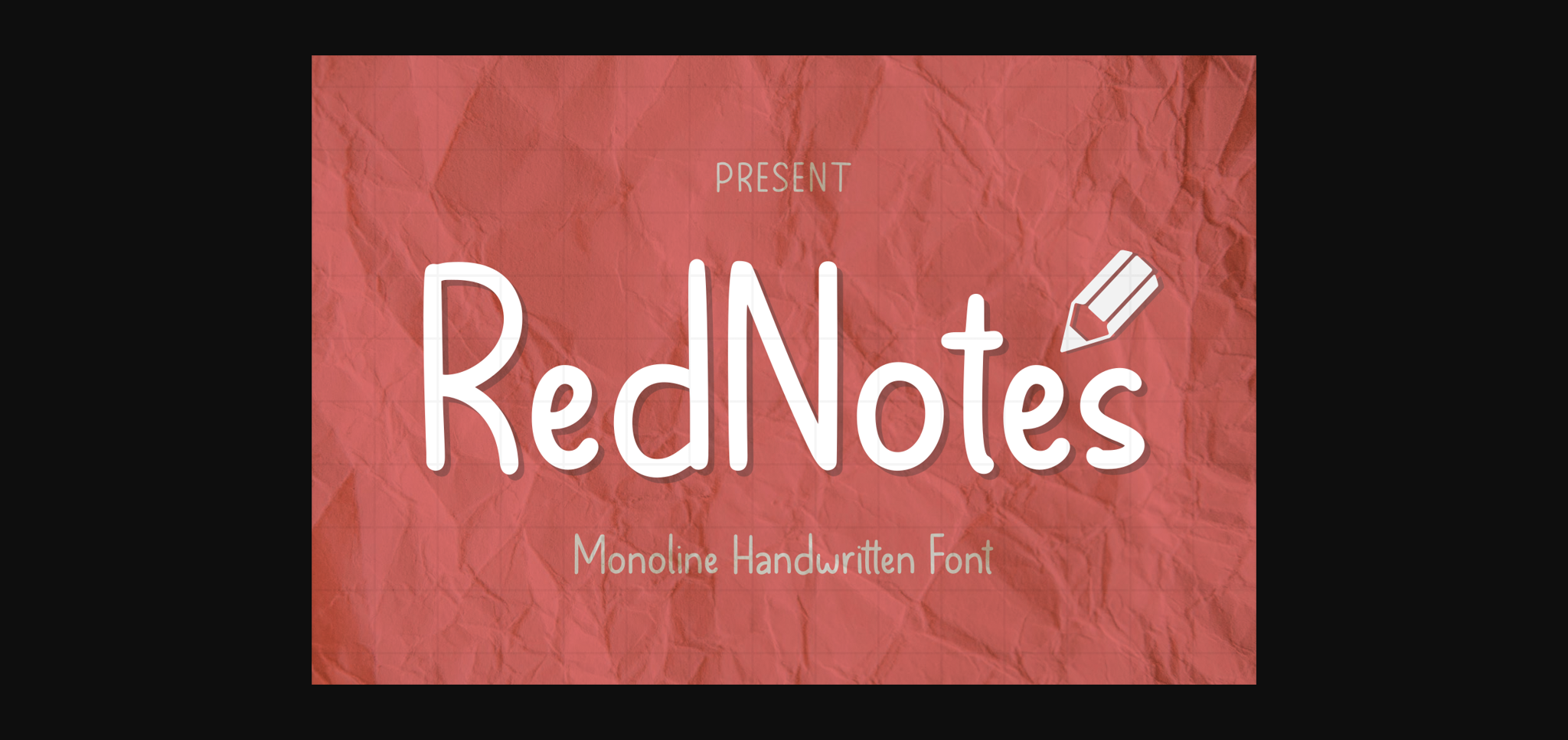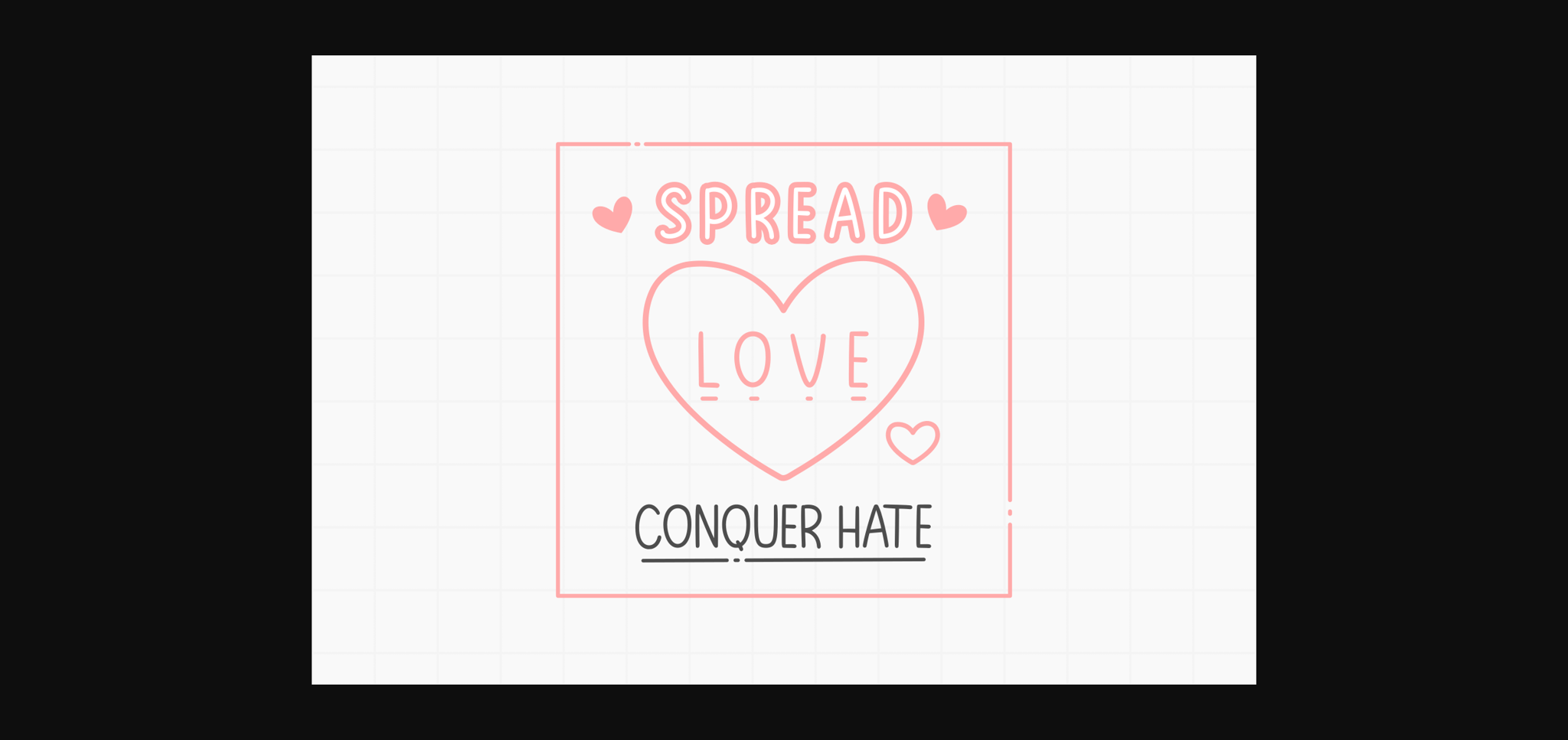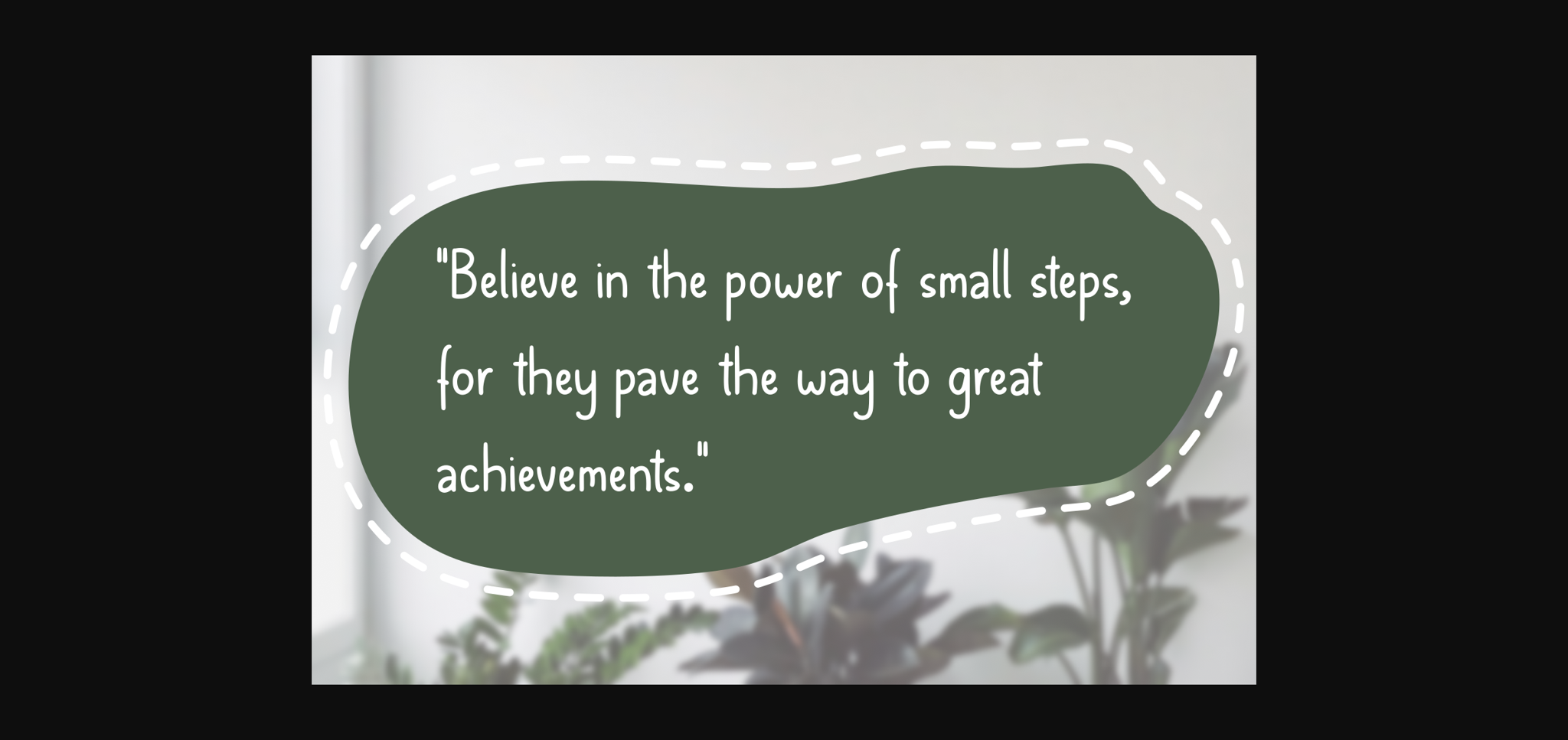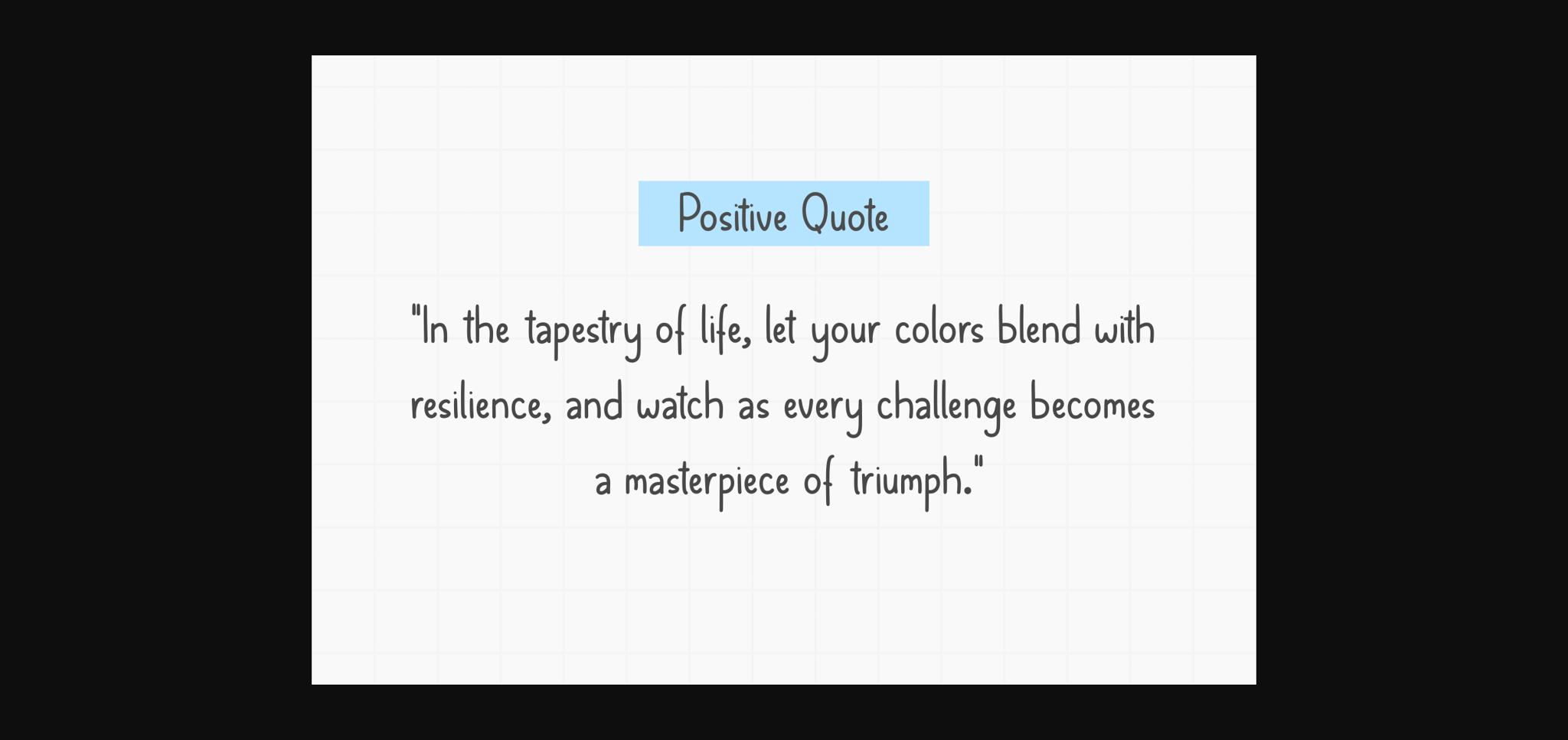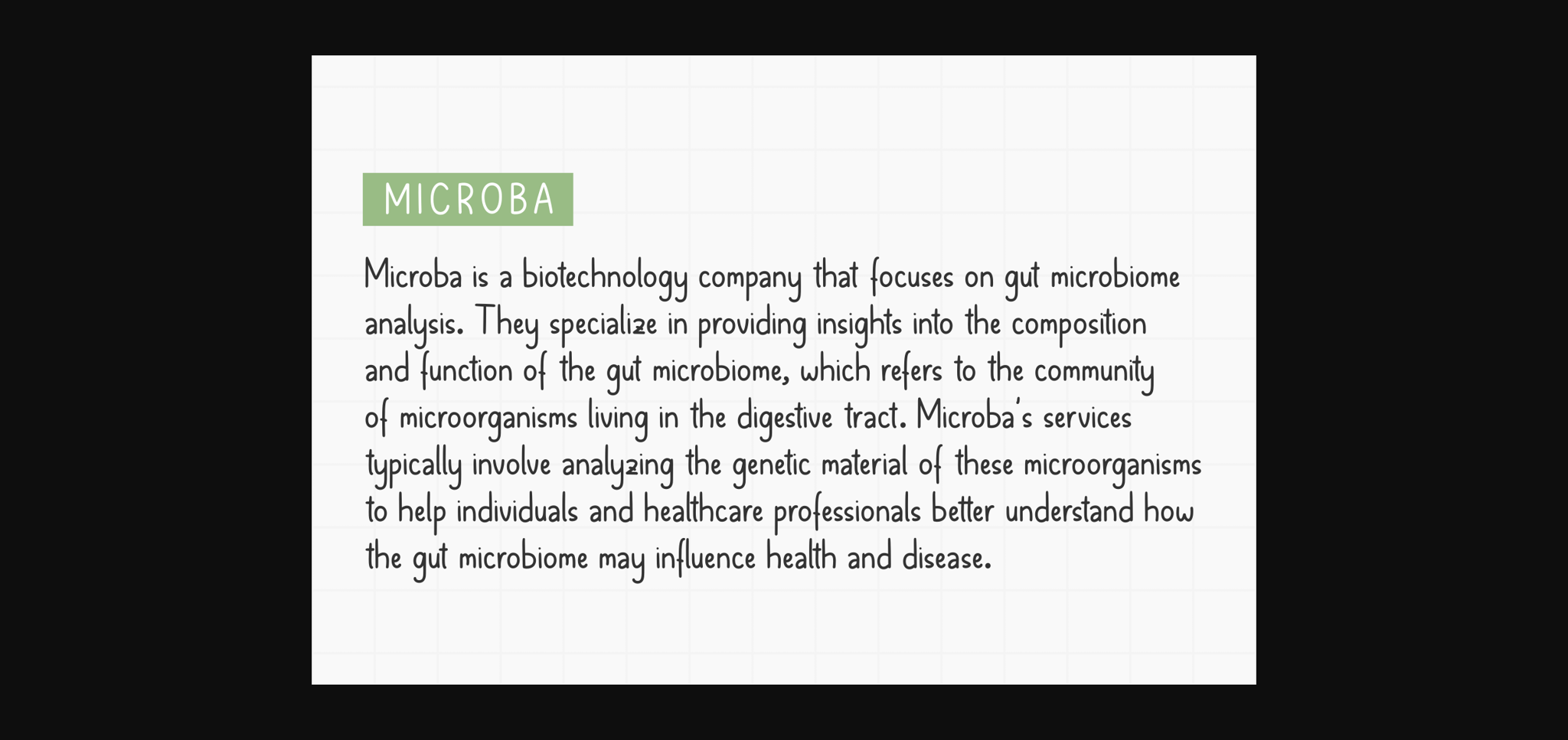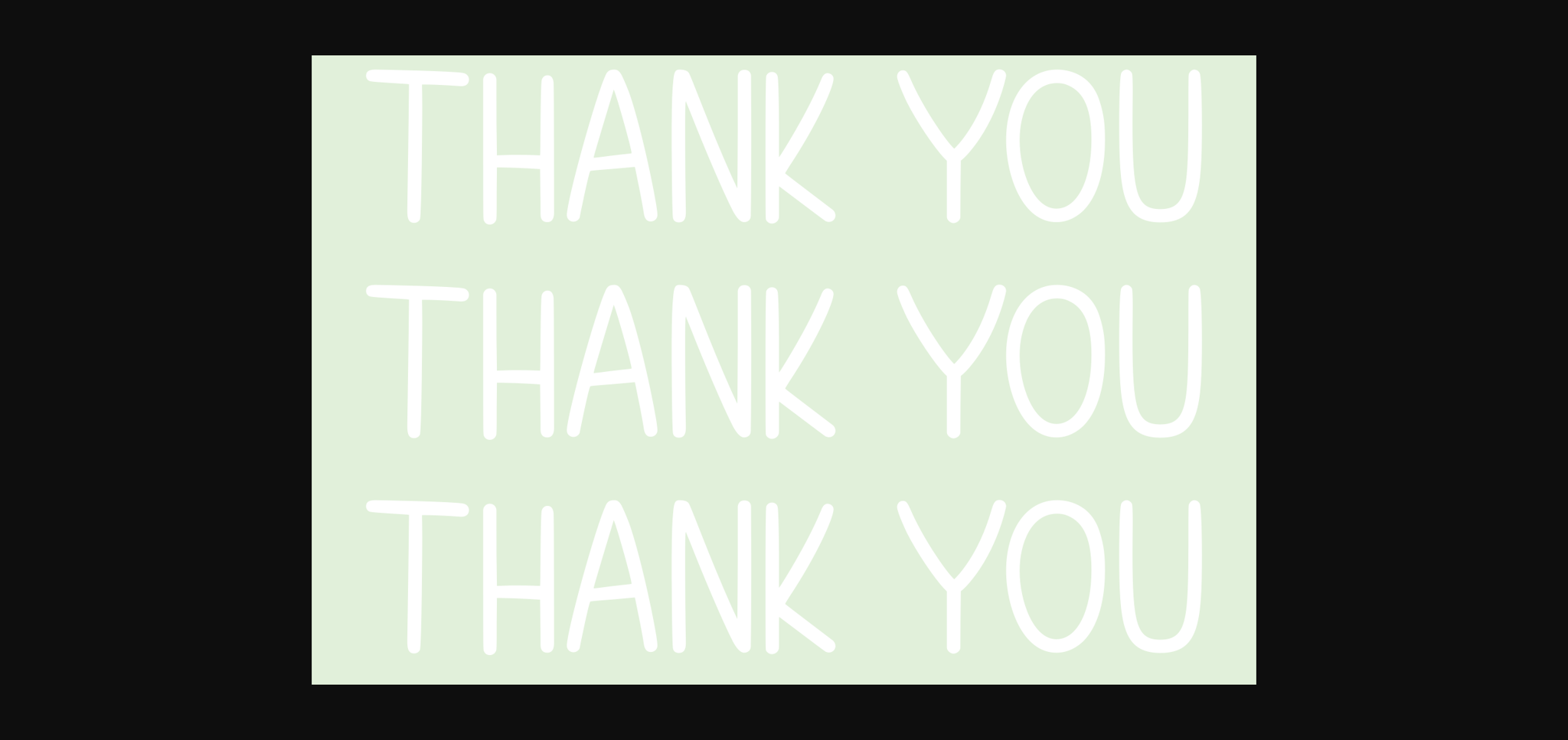
About Rednotes Font
Rednotes is a clean and minimalist sans-serif font that exudes simplicity. With its sleek lines and modern appeal, Rednote is versatile and perfect for a wide range of design projects.
Rednotes is ideal for branding, editorial design, web design, signage, and any project where clear communication is essential. Whether used in headlines or body text, Rednote maintains its readability and elegance.